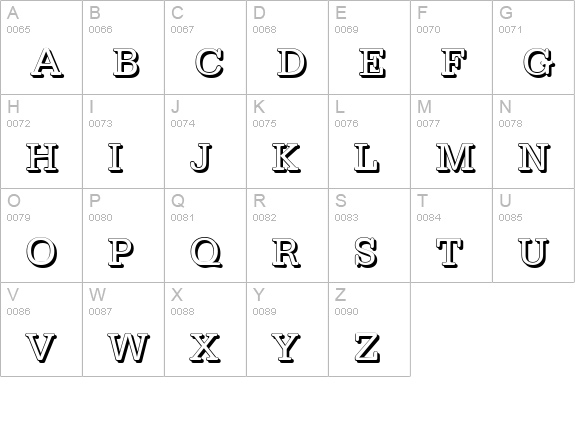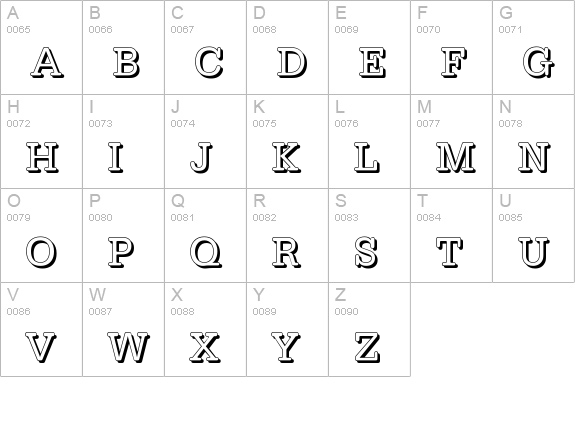
TypewriterSh-Regular Font Details
TypewriterSh-Regular is the standard, neutral variant in the TypewriterSh typeface family \xE2\x80\x94 well suited to general body text, paragraphs, and standard typographic work.
TypewriterSh-Regular font is a classic and versatile typewriter-style typeface that brings a touch of vintage charm to any design project. With its clean lines and distinct retro aesthetic, this font is perfect for creating a nostalgic feel in your work. Whether you're designing invitations, posters, or branding materials, TypewriterSh-Regular font will add a unique and timeless appeal. Best of all, TypewriterSh-Regular font is available for free download at FontsMarket.com. This means you can easily access this stylish and functional font without breaking the bank. So go ahead and give your designs a touch of old-school flair with TypewriterSh-Regular font today!